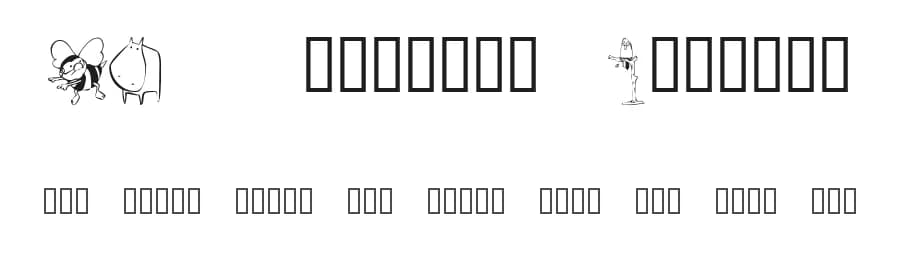
About KR Scrappin Animals Font
KR Scrappin Animals is a dingbat font designed by Kat's Fun Fonts. It includes 23 glyphs, a regular weight, and TTF (TrueType) format. KR Scrappin Animals is free to download; check the license details on this page before commercial use. Dingbat fonts like KR Scrappin Animals work best for icons, ornaments, bullet points, and decorative accents.
KR Scrappin Animals Font is a versatile dingbats font that works for both headings and body text. Pair it with a contrasting sans-serif or serif font to add visual interest and a clear distinction between titles and body copy.
KR Scrappin Animals Font
KR Scrappin Animals Font is a dingbats typeface by Kat's Fun Fonts, ideal for logos, invitations, branding, and creative projects.